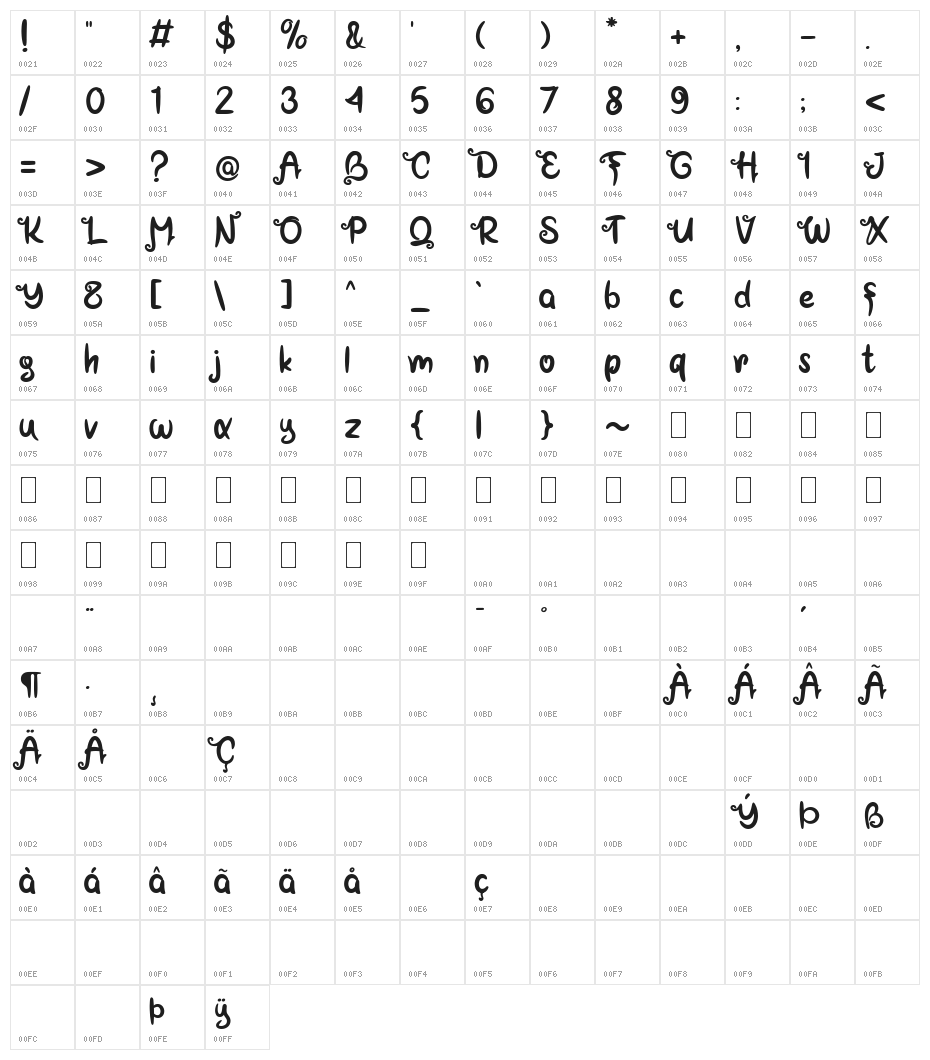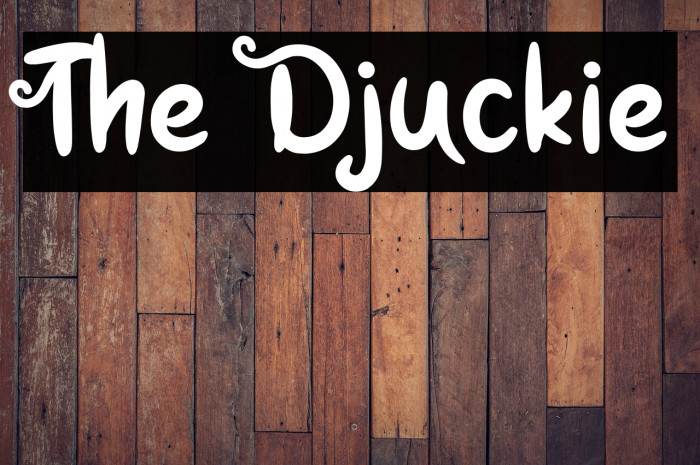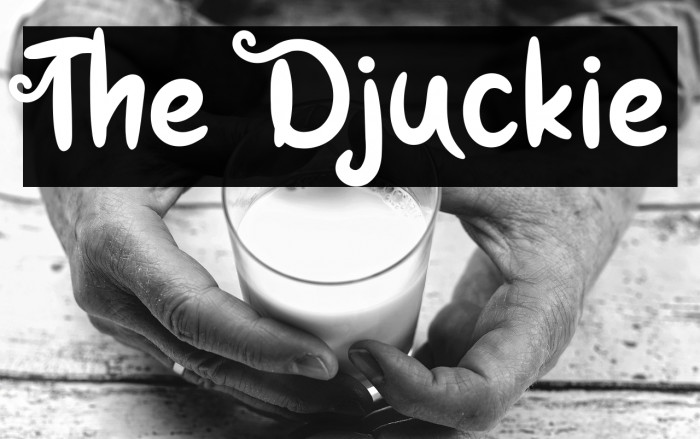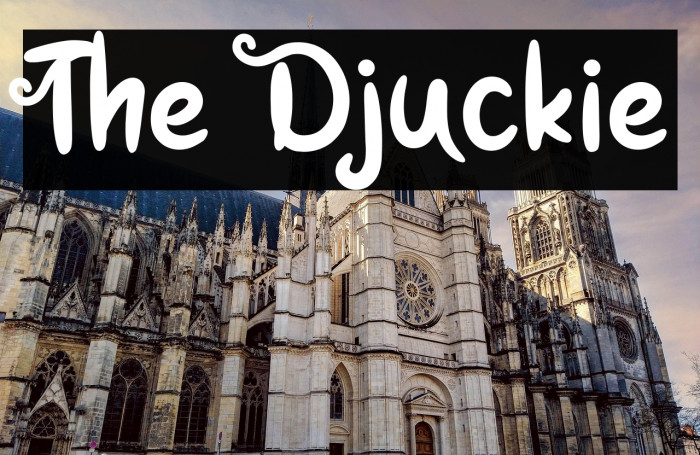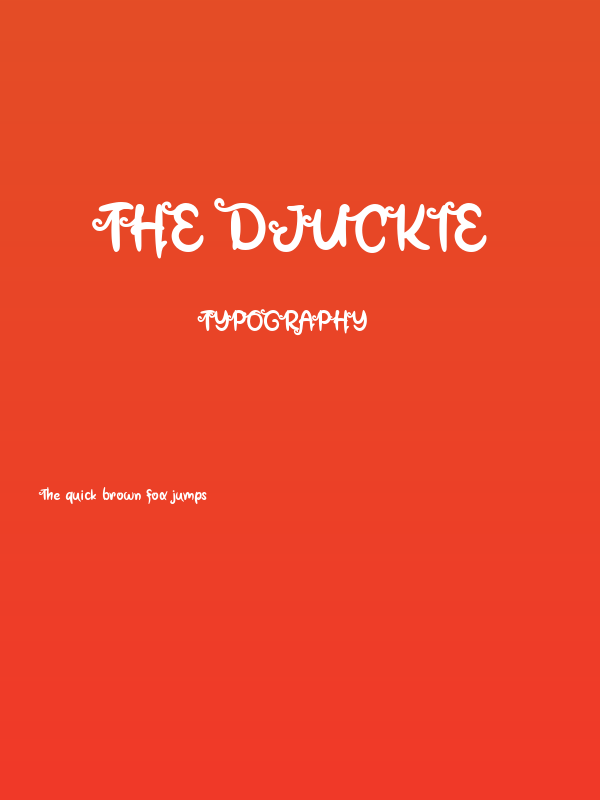
The Djuckie Font
The Djuckie Description
This font features a playful and whimsical style, characterized by its bold and curvy letterforms. Each character is adorned with unique decorative elements, such as curls and swirls, adding a sense of fun and creativity. The uppercase letters are particularly ornate, with exaggerated flourishes that give the font a lively and dynamic appearance. The lowercase letters maintain a consistent style, with rounded edges and a slightly informal feel. Numbers and special characters are designed to match the overall playful aesthetic, ensuring a cohesive look across all text. This font is ideal for projects that require a touch of whimsy and personality.
| Overall Style | Playful, Whimsical, Decorative |
| Proposed Projects | Ideal for children's books, party invitations, playful branding, and creative posters. |